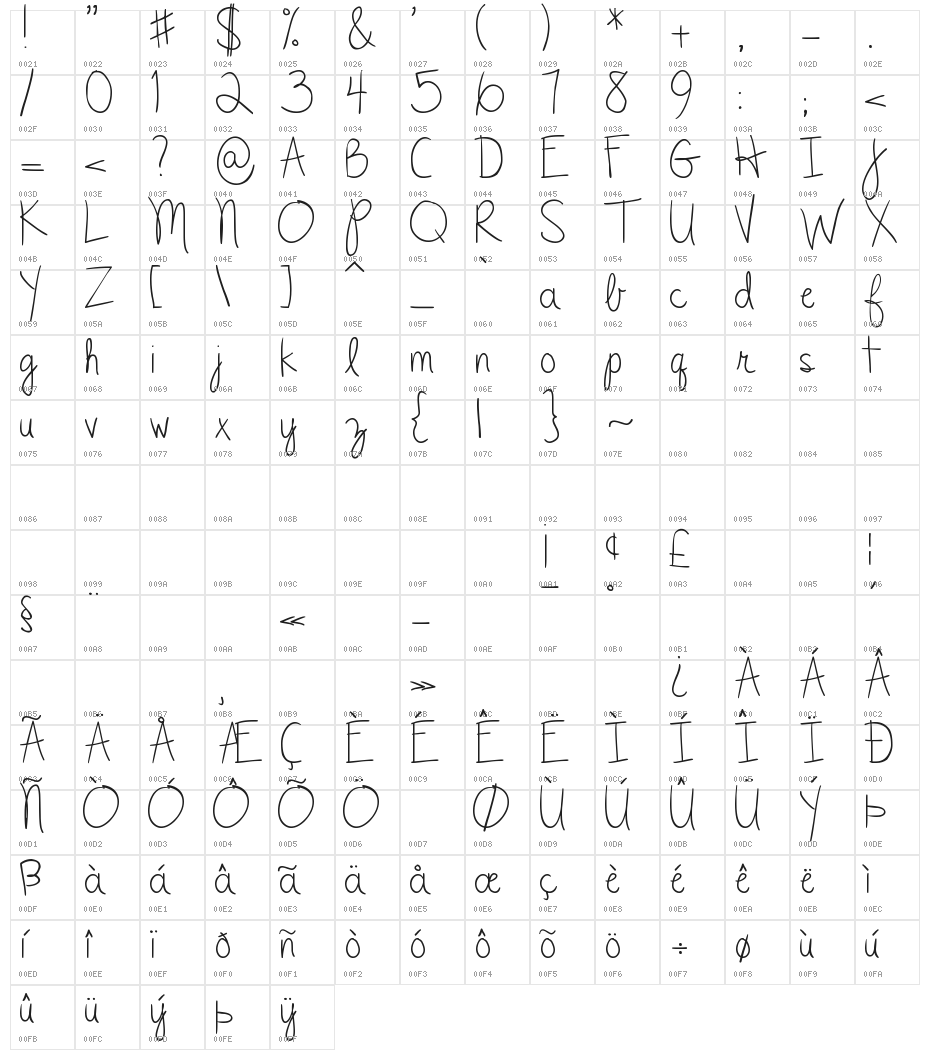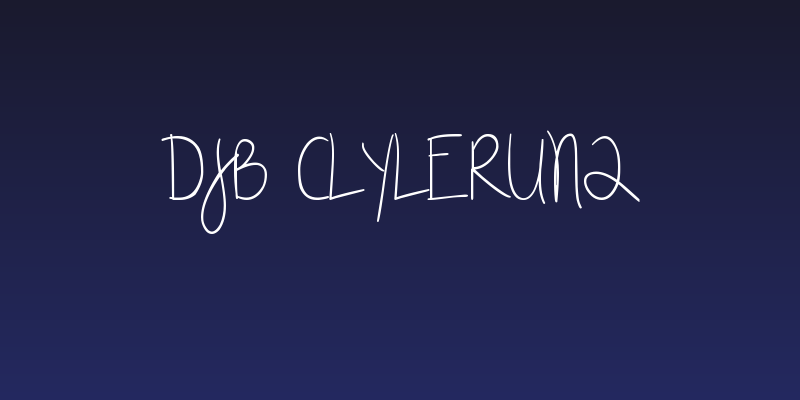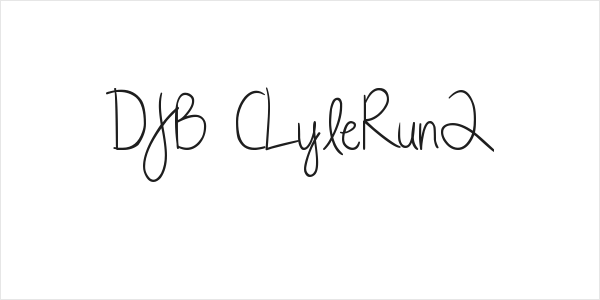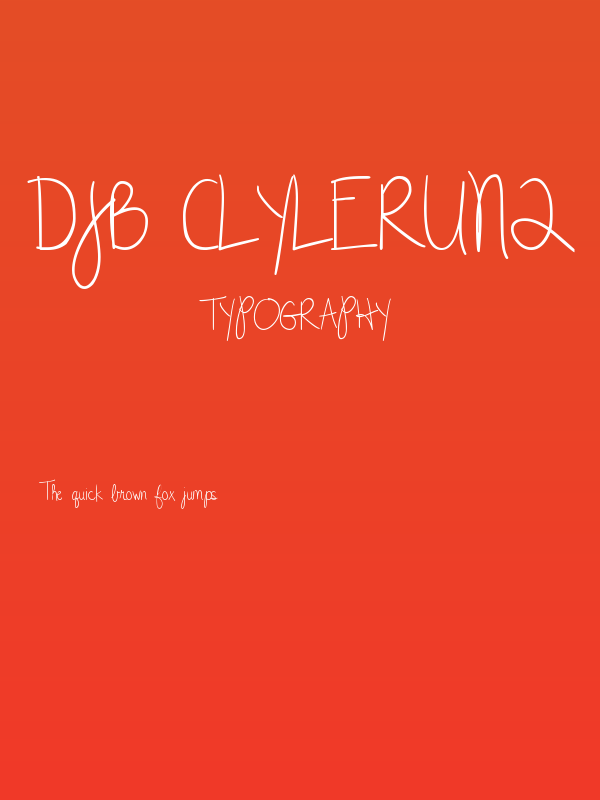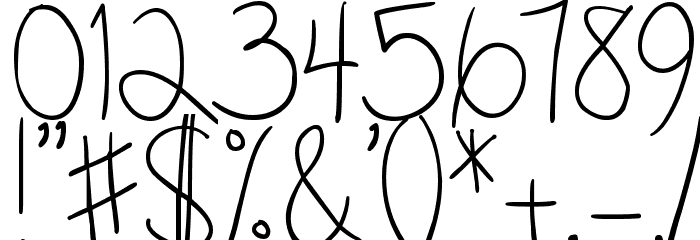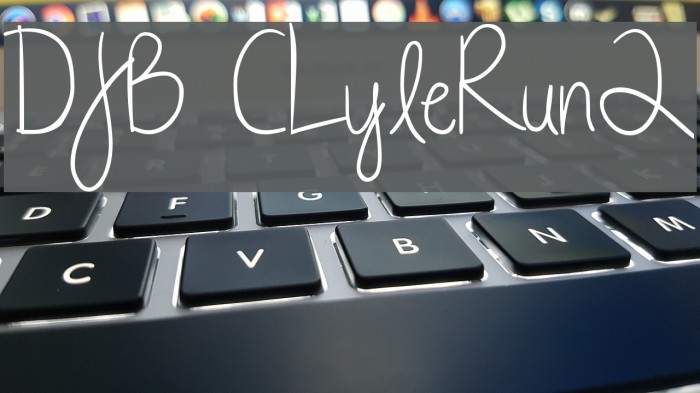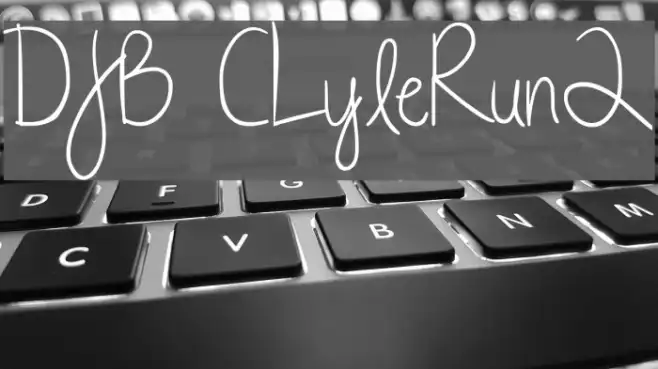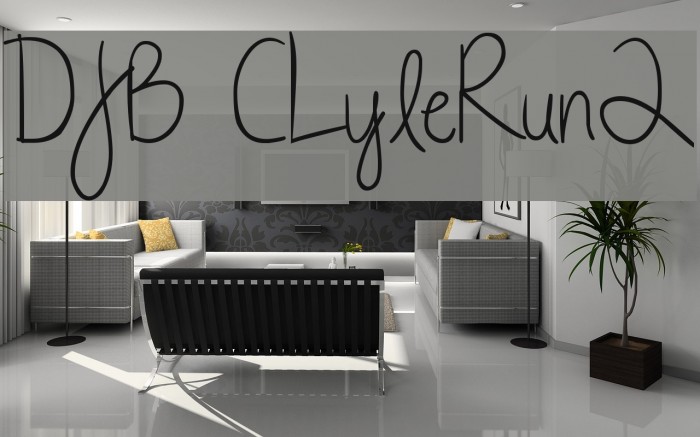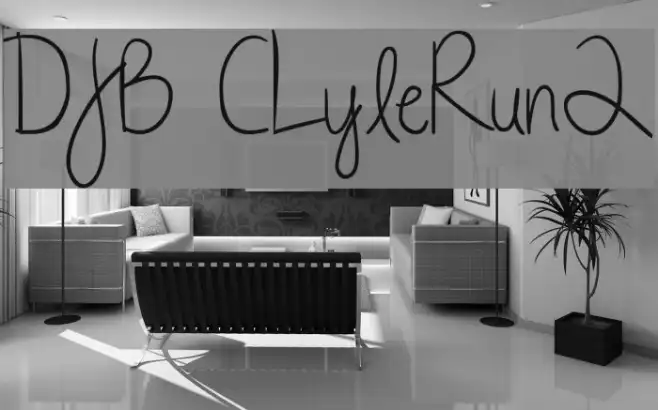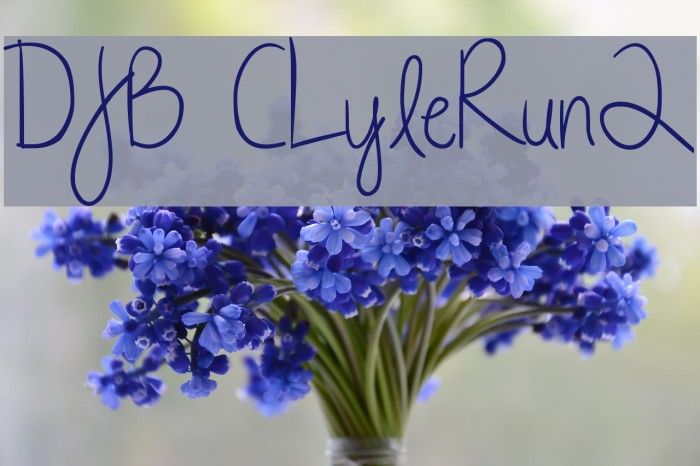
DJB CLyleRun2 Font
DJB CLyleRun2 Description
This font features a playful and whimsical handwritten style, characterized by its tall, narrow letters and slightly irregular strokes. The uppercase letters are distinct with a casual flair, while the lowercase letters maintain a consistent flow, enhancing its handwritten appeal. The numerals are clear and legible, matching the overall style of the alphabet. Special characters are creatively integrated, maintaining the font's unique personality. The strokes are thin, contributing to a light and airy feel, making it suitable for informal and creative applications.
| Proposed Projects | Ideal for greeting cards, children's books, personal blogs, and creative branding. |